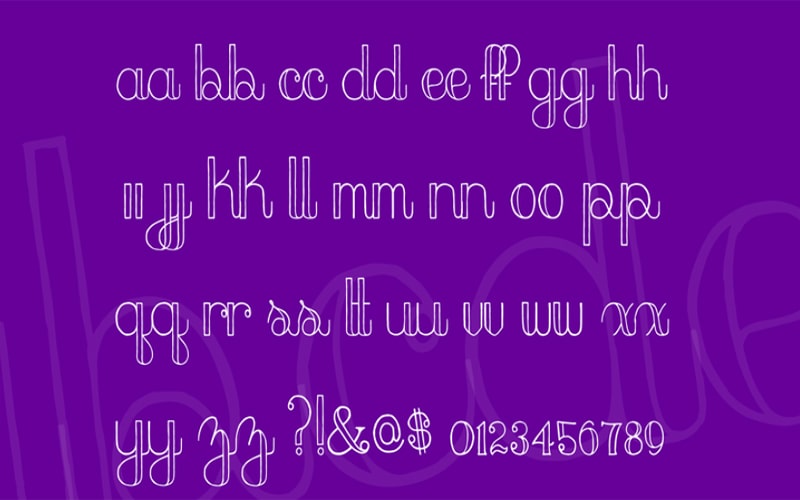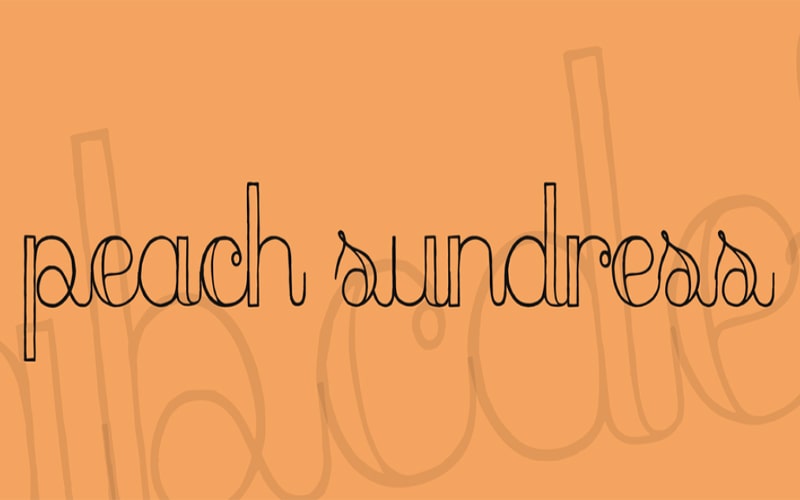
Peach sundress font is an amazing Fancy, Script typeface. This font looks better and more amusing because of its name which has double outlines and hollow inside text forms.
This font was designed by Teagan White on 17 May 2008 for the first time. Teagan White is an American female designer. You can get lots of benefits from Peach Sundress font.
The subfamily of peach sundress font is regular. This Bi-linear and versatile font contains 1 regular style such as the “Peach Sundress Regular” font style.
It supports many multiple languages which makes it familiar all over the world. So you guys can easily use this modish and stylish typeface in your various ongoing projects.
This amazing and incredible free version font is available in all defined characters includes with 26 lowercase and 26 uppercase letters. with 10 numbers and some punctuation marks as well.
You can use this outlandish font for different purposes like various projects, displays in magazines, banners, newspaper ads, the title of movies, and posters.